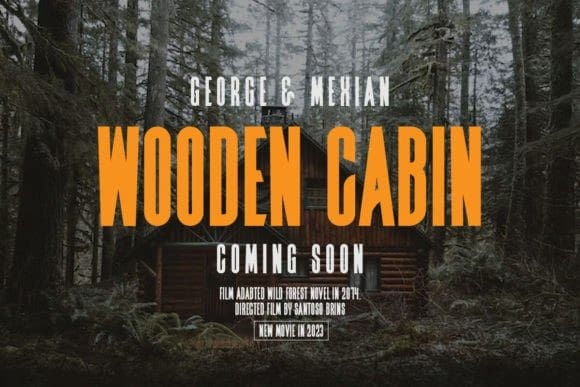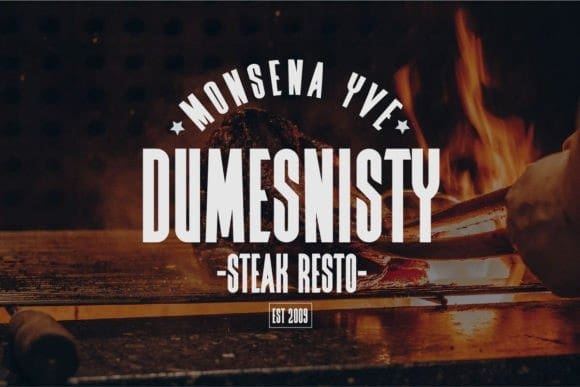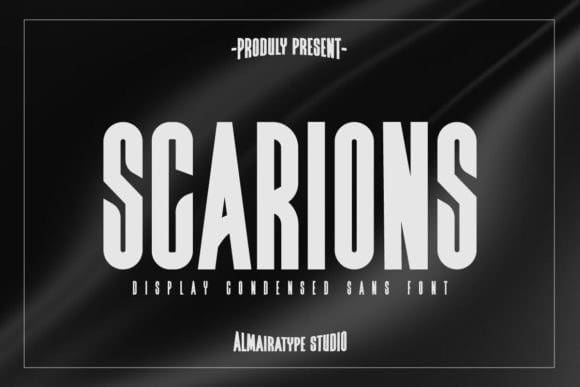
Scarions Font
Scarions Font is a cutting-edge sans-serif font that exudes modernity and versatility. Its clean lines and sharp angles lend it a contemporary edge, making it an excellent choice for a wide range of design applications. Whether for website design, branding, or editorial work, Scarions’ sleek and minimalist appearance adds a touch of sophistication to any project, making it a top choice for designers seeking a modern aesthetic.